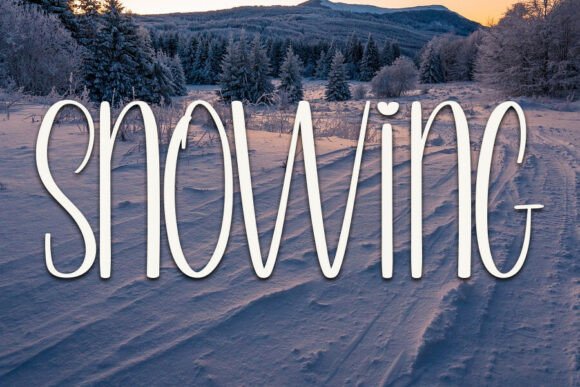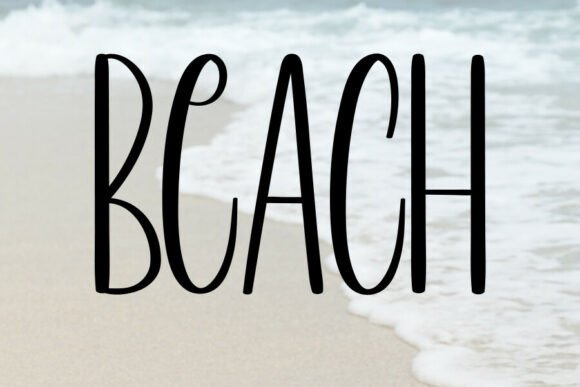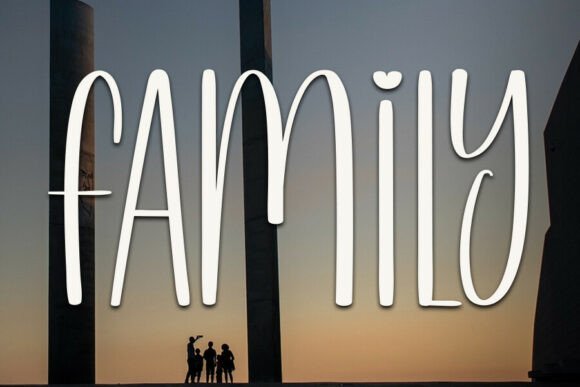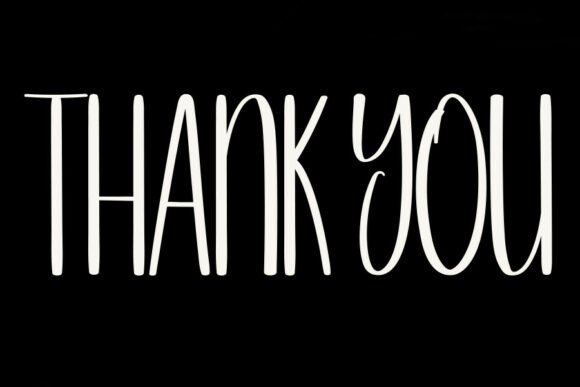
Introducing Camera Font: The Perfect Blend of Clarity and Relaxed Style
Are you tired of using fonts that are too formal or too boring? Look no further than Camera Font, a neat and casual handwritten font that blends clarity with a relaxed, approachable vibe. With its clean lines and friendly letterforms, Camera Font is perfect for designers and crafters who want to add a touch of personality to their projects without overwhelming the message.
What Makes Camera Font Special?
Camera Font is designed to be both modern and laid-back, making it ideal for a wide range of design projects. Its balanced structure and playful energy bring a sense of fun and approachability to any design, while its clean lines and clear letterforms ensure that the message is always clear and easy to read.
Whether you’re designing a headline, poster, packaging, or branding materials, Camera Font is the perfect choice. Its versatility and legibility make it suitable for both digital and print designs, and its unique personality is sure to make your project stand out from the crowd.
The Benefits of Using Camera Font
So why choose Camera Font for your next design project? Here are just a few of the benefits of using this amazing font:
- Clarity and Readability: Camera Font is designed to be easy to read, even at small sizes. Its clean lines and clear letterforms make it perfect for body text, headlines, and titles.
- Relaxed and Approachable: Camera Font has a friendly, laid-back vibe that’s perfect for designs that want to feel modern and approachable.
- Versatile: Camera Font is suitable for a wide range of design projects, from digital designs to print materials.
- Playful Energy: Camera Font has a playful energy that’s sure to bring a smile to your audience’s face.
How to Use Camera Font in Your Designs
Camera Font is easy to use and can be incorporated into your designs in a variety of ways. Here are a few tips for getting the most out of this amazing font:
- Use it as a Headline Font: Camera Font is perfect for headlines and titles. Its bold and playful energy is sure to grab attention and draw your audience in.
- Pair it with Other Fonts: Camera Font pairs well with a variety of other fonts, from serif fonts to sans-serif fonts. Experiment with different pairings to find the one that works best for your design.
- Use it for Body Text: Camera Font is also suitable for body text. Its clarity and readability make it perfect for longer blocks of text.
Design Ideas that Showcase Camera Font
Camera Font is a versatile font that can be used in a wide range of design projects. Here are a few ideas to get you started:
- Posters and Flyers: Camera Font is perfect for posters and flyers. Its bold and playful energy is sure to grab attention and draw your audience in.
- Branding and Packaging: Camera Font is also suitable for branding and packaging materials. Its friendly and approachable vibe is sure to make your brand stand out.
- Digital Designs: Camera Font is perfect for digital designs, from social media graphics to website headers.
In conclusion, Camera Font is a unique and versatile font that’s perfect for designers and crafters who want to add a touch of personality to their projects. With its clean lines, friendly letterforms, and playful energy, Camera Font is sure to bring a smile to your audience’s face. Whether you’re designing a headline, poster, packaging, or branding materials, Camera Font is the perfect choice. So why wait? Try Camera Font today and see the difference it can make in your designs!